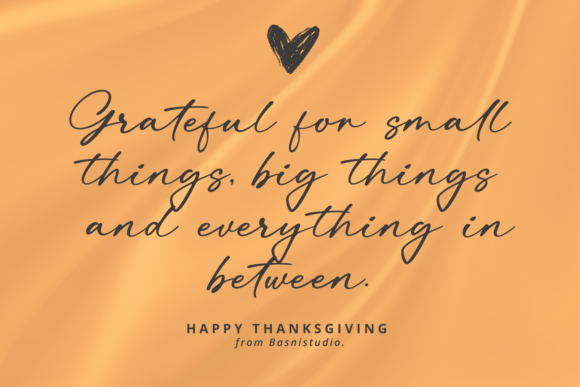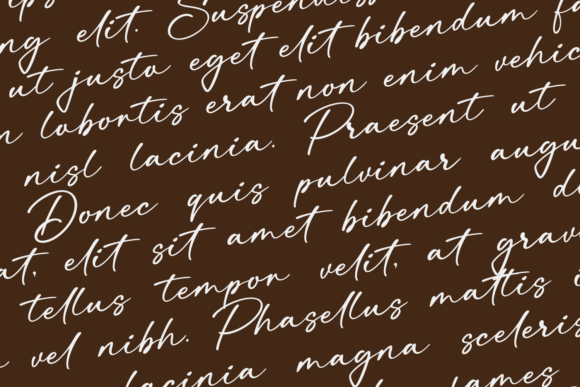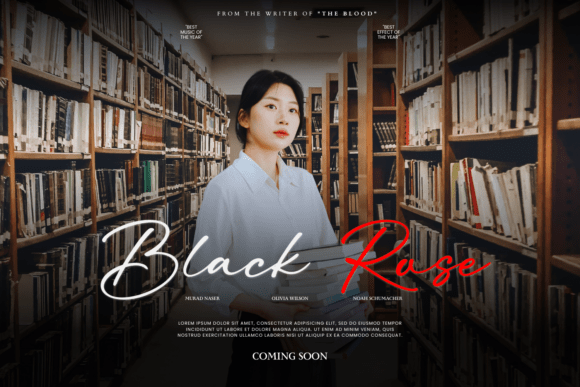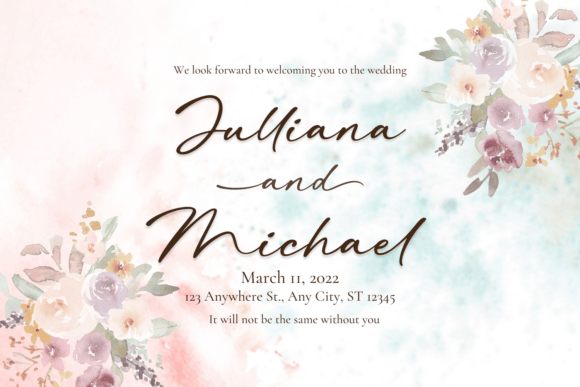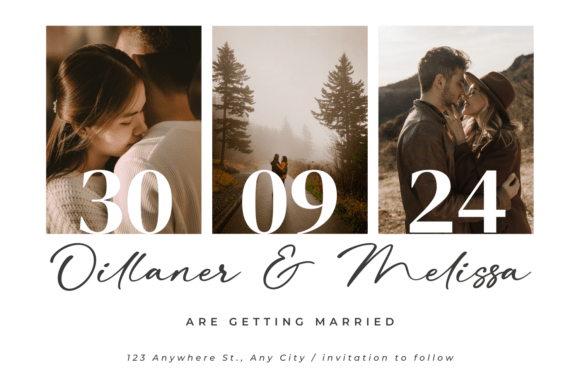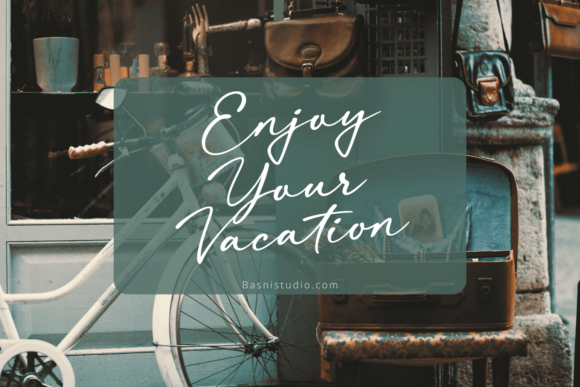
Introduction to Sailor Religne Font
As a designer, have you ever found yourself struggling to add a personal touch to your creative project? You know, that moment when you’re pouring your heart and soul into a design, but it’s just missing that special something – that warm, authentic feel that makes it truly unforgettable?
That’s where the Sailor Religne Font comes in – a game-changing design resource that’s about to revolutionize the way you approach your next project. This stunning signature font is not just a pretty face; it’s a high-quality, versatile tool that’s designed to bring elegance and authenticity to everything from branding and social media to invitations and packaging.
Key Features of Sailor Religne Font
- High-quality, hand-drawn design perfect for creative projects.
- Features a transparent background, allowing for easy layering and customization.
- Size: Includes 6 font styles, each with its unique characteristics and nuances.
- Perfect for use in a variety of design projects, from branding and marketing materials to digital products and creative expressions.
Honest Review: Sailor Religne Font
As a designer, I’m always on the lookout for high-quality fonts to elevate my creative projects. Recently, I stumbled upon the Sailor Religne Font, and I’m excited to share my thoughts on this design resource.
- ✨ The Sailor Religne Font has a unique, elegant design that’s perfect for branding and editorial projects.
- ✨ The transparent background makes it easy to layer and customize the font in your design.
- ⚠️ The Sailor Religne Font is a script font, which can be challenging to read in certain contexts (e.g., body text).
- ⚠️ The font may not be suitable for projects that require a bold, sans-serif font.
Overall, I’m impressed with the Sailor Religne Font’s high quality and versatility. While it may have some limitations, it’s an excellent choice for designers looking for a unique, elegant script font. If you’re working on a creative project that requires a sophisticated touch, the Sailor Religne Font is definitely worth considering.
Sailor Religne Font
The Sailor Religne Font is a high-quality design resource that offers a unique and creative touch to any project. With its transparent background, this font is perfect for designers who want to add a professional and modern look to their work.
Is the Sailor Religne Font suitable for print and digital use?